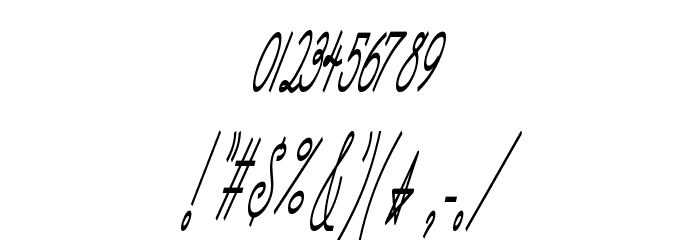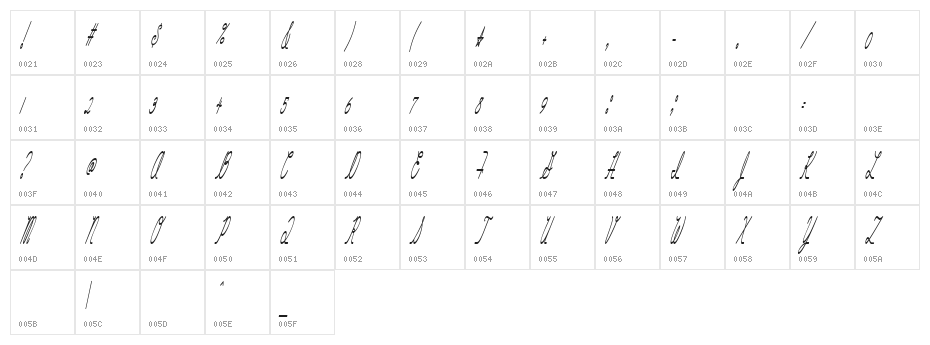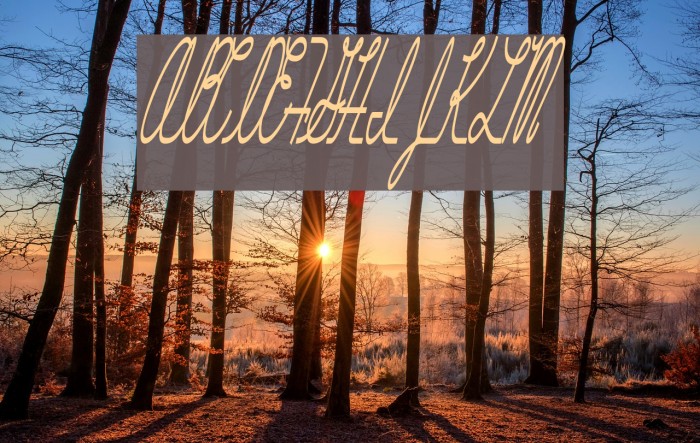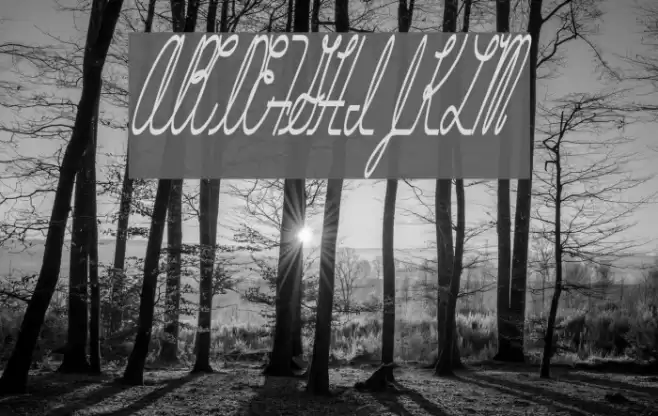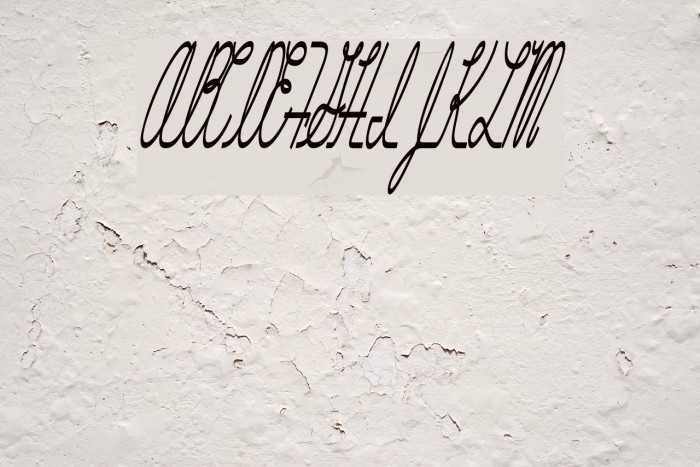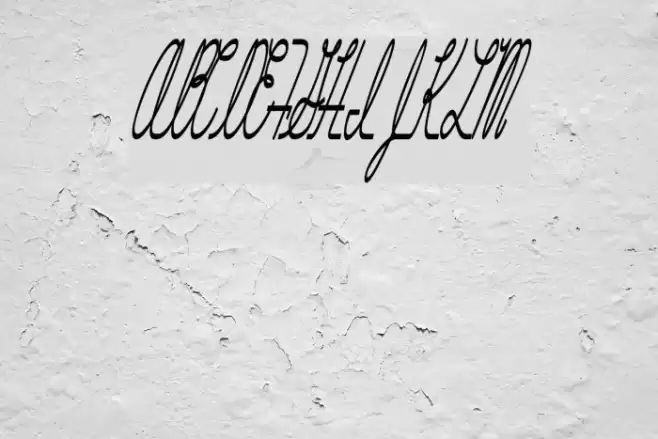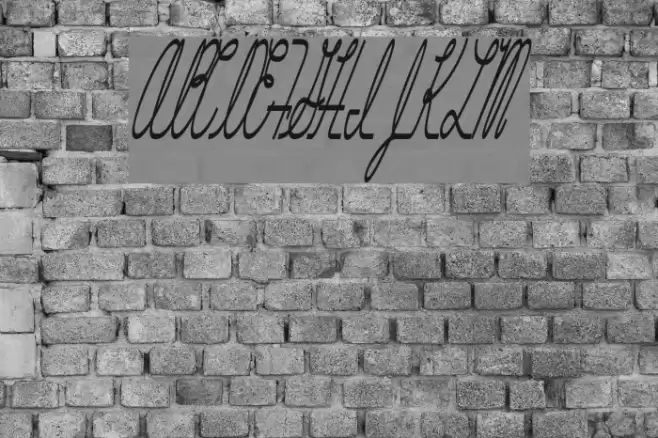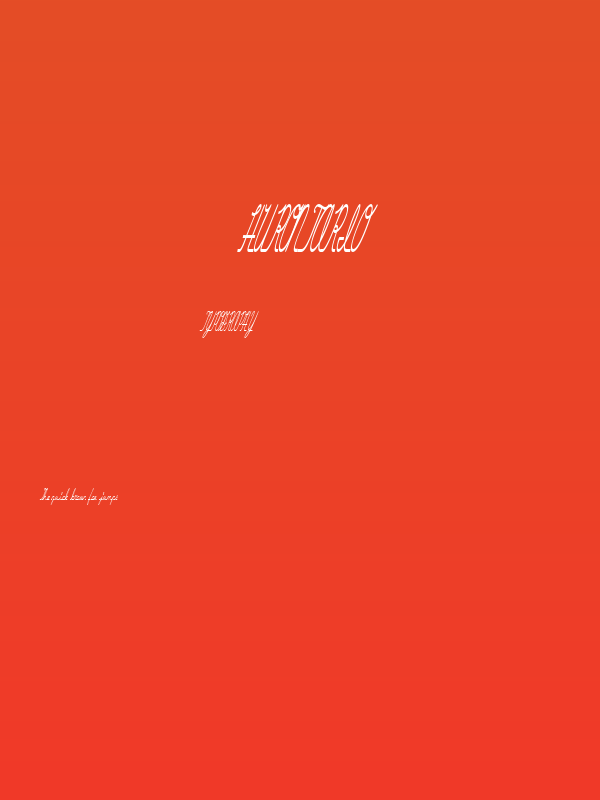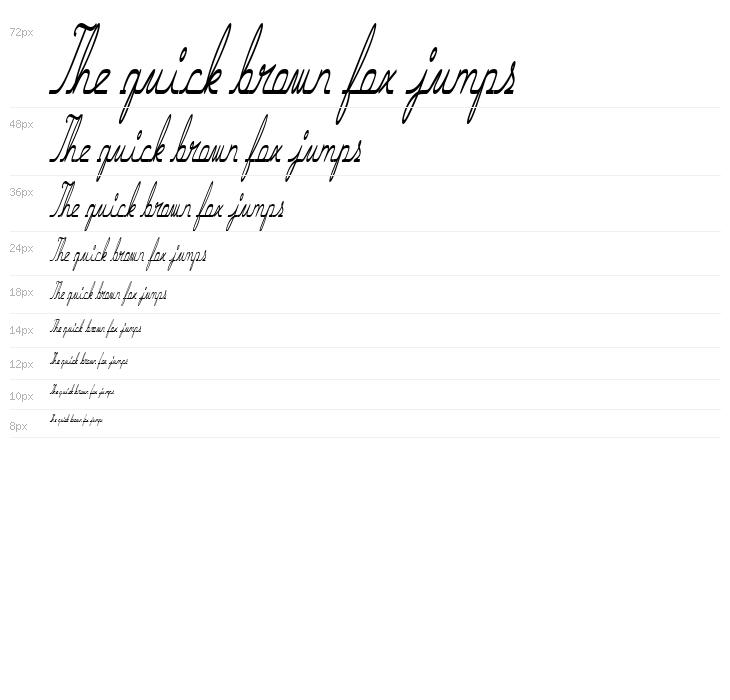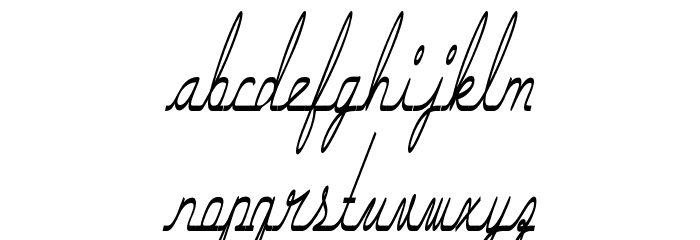
Hurontario Font
Hurontario Description
This font exhibits a classic cursive style with elegant, flowing lines that connect each character seamlessly. The letters are slanted, giving a sense of motion and fluidity, reminiscent of traditional handwriting. The uppercase letters are distinct and ornate, while the lowercase letters maintain a consistent and smooth appearance. The numbers and special characters are crafted to match the overall cursive theme, ensuring a cohesive look. The font's design is both sophisticated and timeless, making it suitable for a variety of applications.
| Use Case | Logos, Invitations, Personal Correspondence |
| Proposed Projects | Ideal for wedding invitations, personal letters, branding, and any project requiring a touch of elegance and sophistication. |